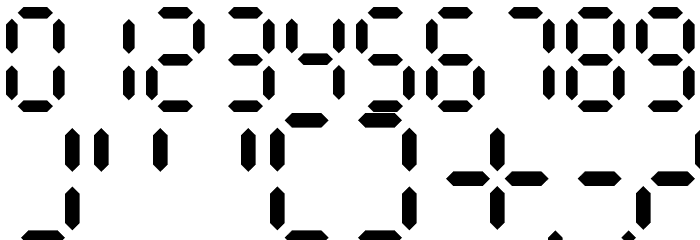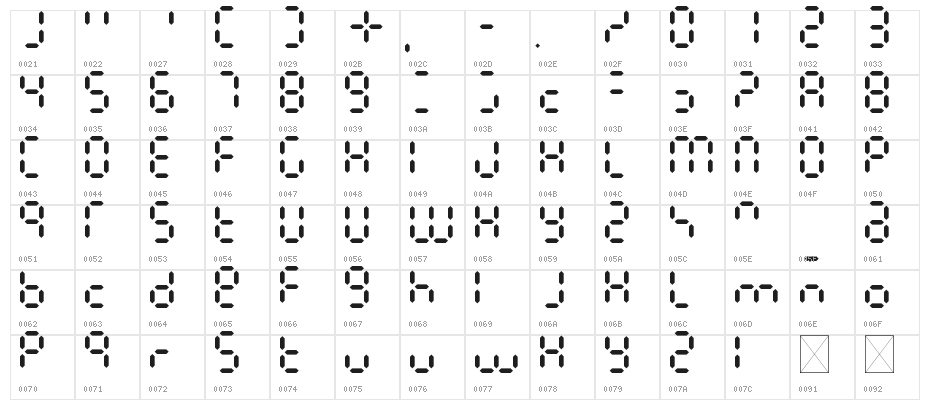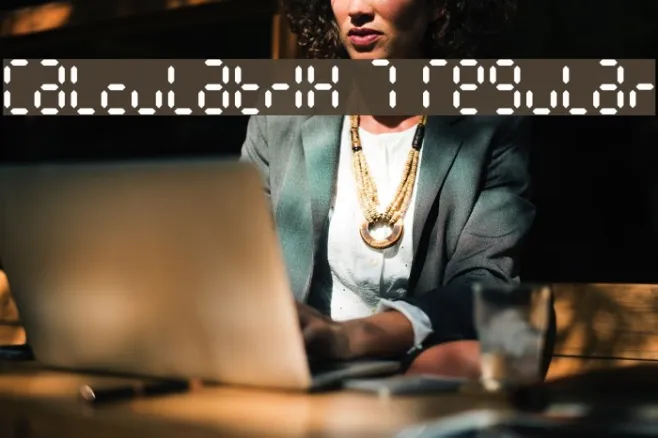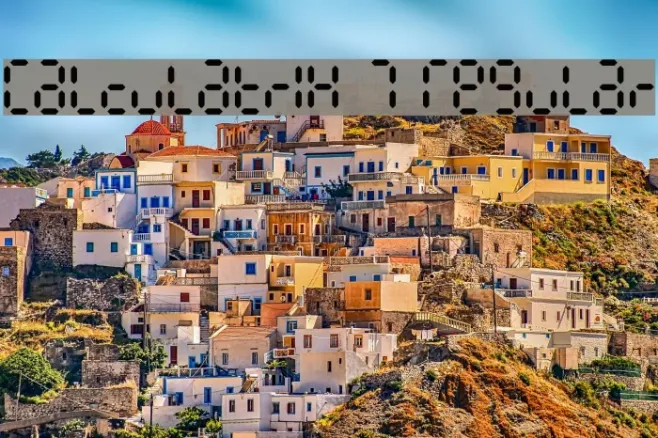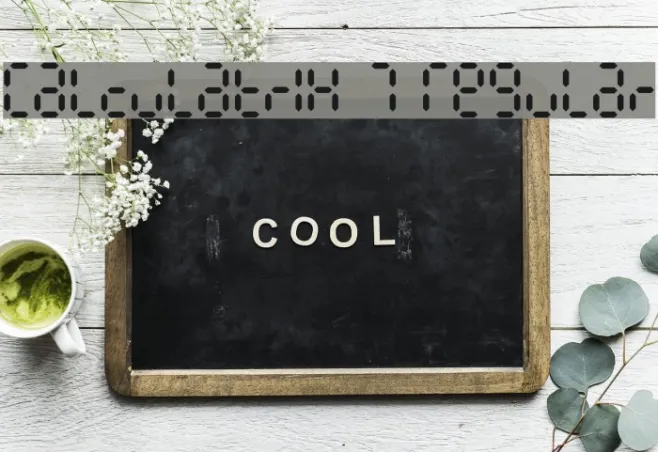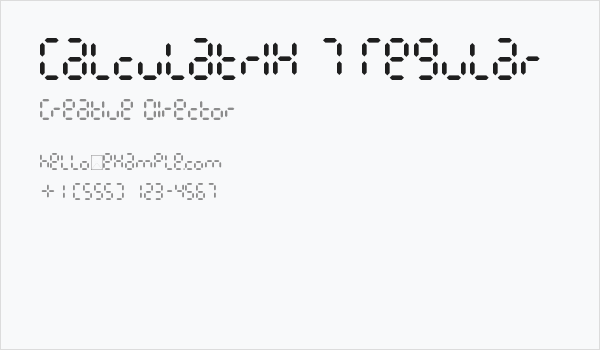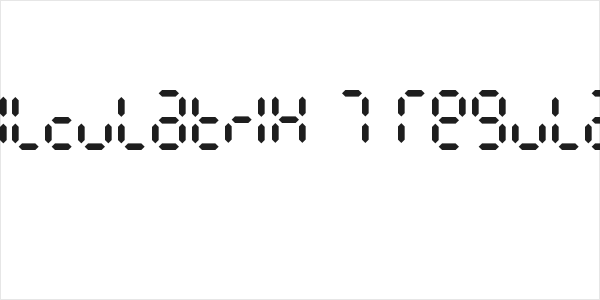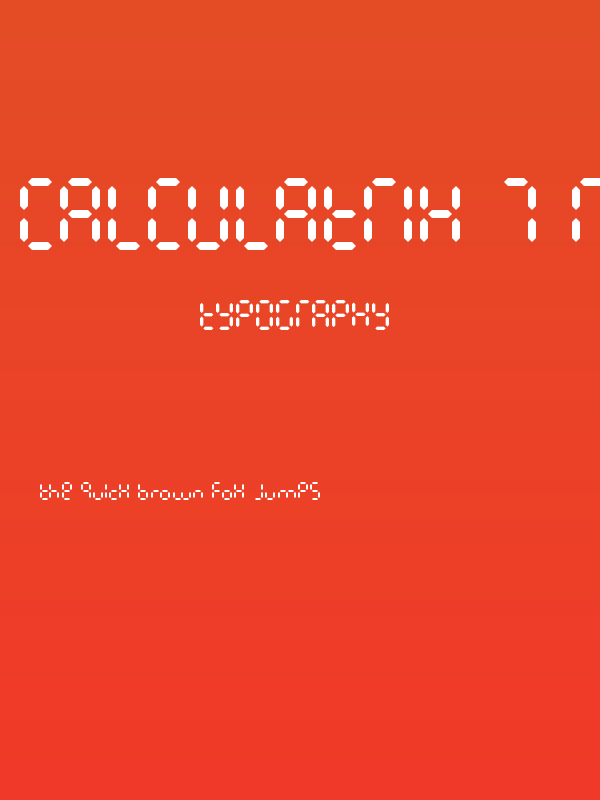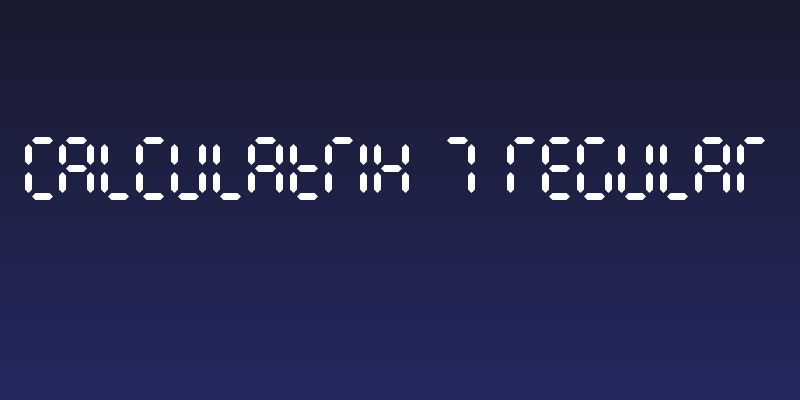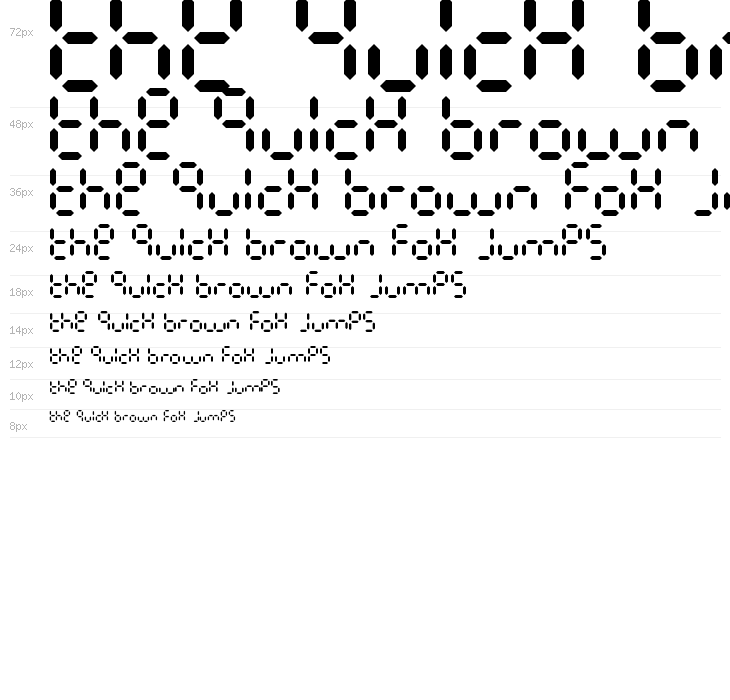
Calculatrix 7 Regular Font
Calculatrix 7 Regular Description
This font features a distinctive digital or electronic style reminiscent of classic LCD or LED displays. Each character is composed of segmented lines, creating a geometric and futuristic appearance. The uniformity and angularity of the segments give it a highly technical and modern look, ideal for digital-themed projects. The font maintains consistent spacing and alignment, ensuring readability while preserving its unique aesthetic. Its design is both functional and decorative, making it suitable for various applications where a digital or retro-futuristic vibe is desired.
| Proposed Projects | Ideal for digital clocks, tech-themed posters, retro video games, and electronic device interfaces. |